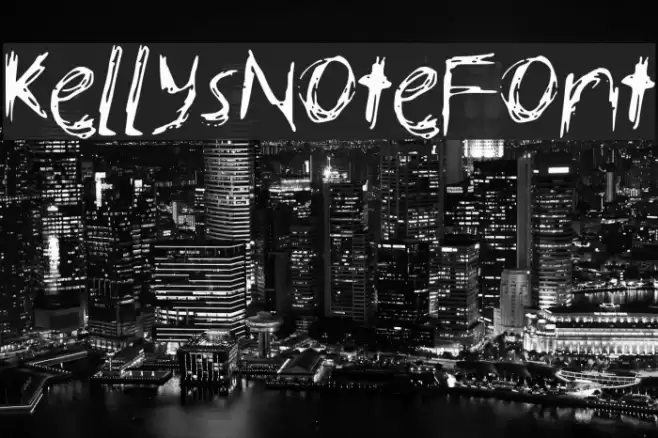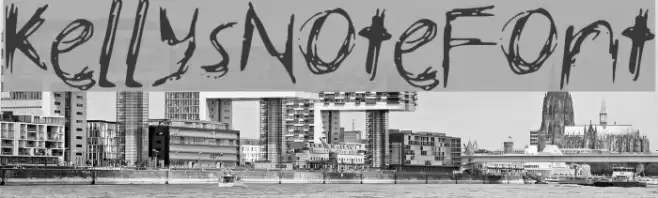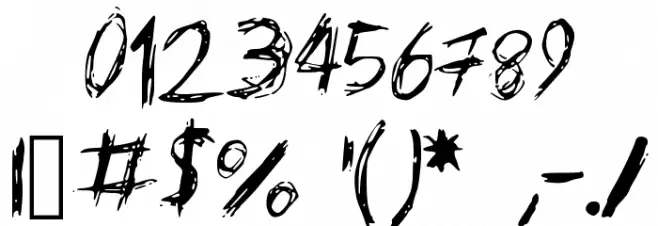
KellysNoteFont Font
KellysNoteFont Description
This font exhibits a dynamic and energetic style, characterized by its rough, hand-drawn appearance. The letters have an irregular, brush-like texture that gives them a raw and expressive feel. The uppercase and lowercase characters maintain a consistent style, with jagged edges and varying stroke widths that add to the font's chaotic charm. Numbers and special characters follow the same aesthetic, making the font versatile for creative projects. Its unique style captures attention and conveys a sense of urgency or excitement, making it ideal for impactful designs.
A rough, hand-drawn font with a dynamic and energetic style from Uncategorized fonts.
- Proposed Projects: Ideal for posters, album covers, graffiti art, and edgy branding projects.